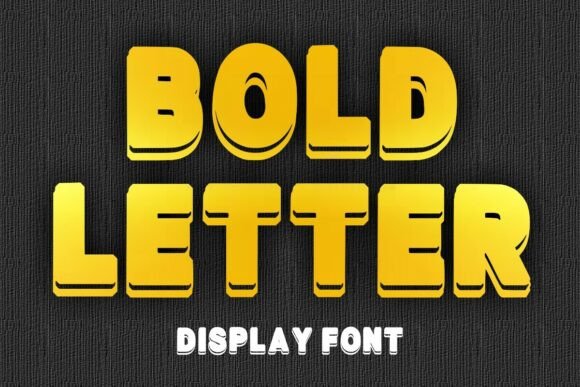
The Power of Bold Letter Font: Elevate Your Designs with Confidence
I’ll never forget the time I was working on a project for a music festival poster, and I was struggling to find the perfect font that would capture the energy and excitement of the event. My client wanted something bold, eye-catching, and instantly communicative. After hours of searching, I stumbled upon Bold Letter – Display Font, and it was love at first sight! ✨ With its thick, solid, and impactful letterforms, this typeface was exactly what I needed to make the poster pop.
• ✅ Instant Attention-Grabber: Bold Letter’s striking design ensures that your message will stand out in any setting.
• ✨ Versatility: This font is perfect for both digital and print use, making it a great addition to your design toolkit.
• ✅ Easy to Read: Despite its bold style, the font remains clear and legible, even at smaller sizes.
• ✅ High-Quality Design: The font is carefully crafted with attention to detail, ensuring a professional look and feel.
While Bold Letter is an excellent font, there are a few things to keep in mind: ⚠️ Limited Use Cases: Due to its bold style, this font might not be suitable for body text or smaller sizes. It’s best used for headlines, titles, or promotional materials. 🤔 Glyph Support: Some special characters or glyphs might not be included in the font, so be sure to check the font’s documentation before using it for a project.
The Designer Inspiration Behind Bold Letter
Bold Letter was designed with the goal of creating a font that would instantly grab attention and convey confidence. The designer, inspired by modern typography and bold styles, crafted a font that would be perfect for projects that need a strong visual presence.
What is the best use case for Bold Letter? Bold Letter is perfect for projects that need a strong visual presence, such as posters, banners, headlines, product packaging, and advertising.
Is Bold Letter suitable for body text? No, Bold Letter is best used for headlines, titles, and promotional materials. It’s not suitable for body text or smaller sizes.
Does Bold Letter support OpenType features? Yes, Bold Letter supports OpenType features, including stylistic alternates and glyphs.